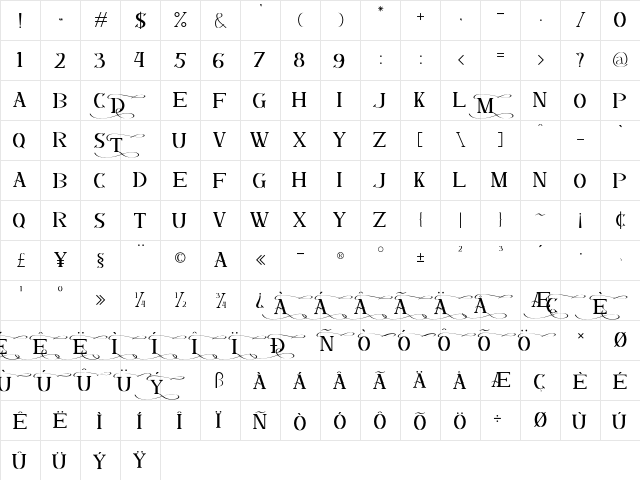
DALMANTI Regular
Design Context for DALMANTI Typeface
DALMANTI offers clean, dependable letterforms without strong stylistic allegiance, making it a practical choice for designers who need flexibility.